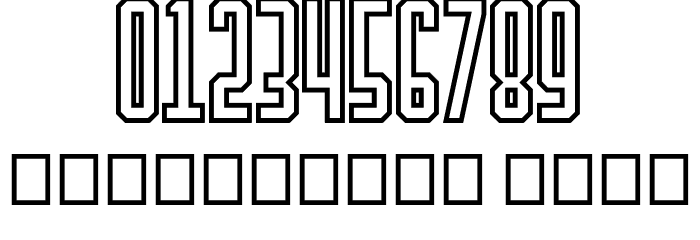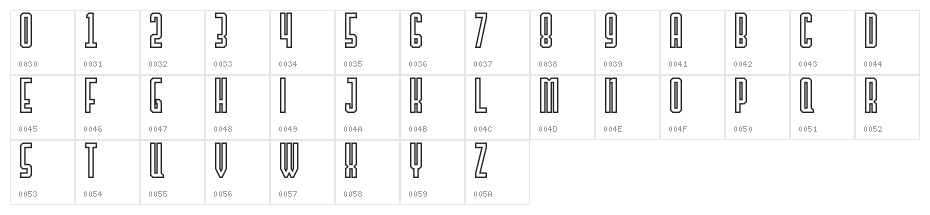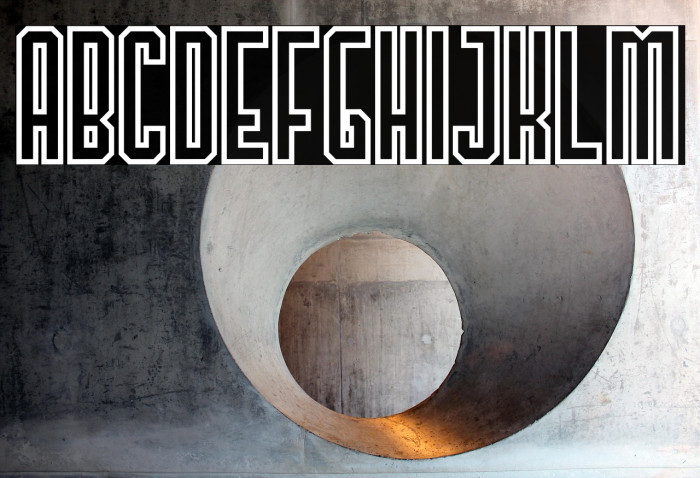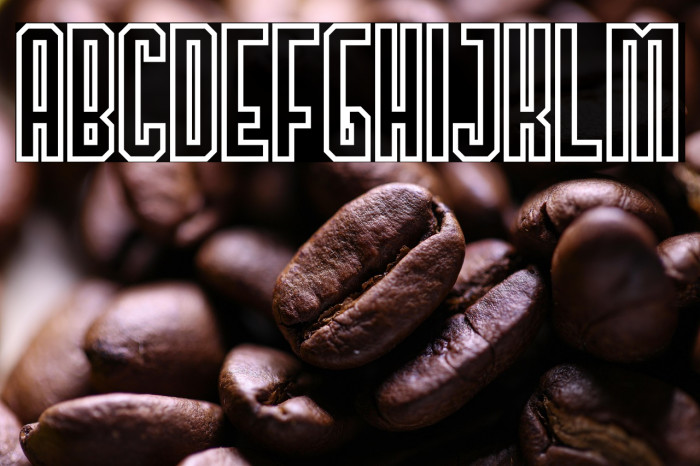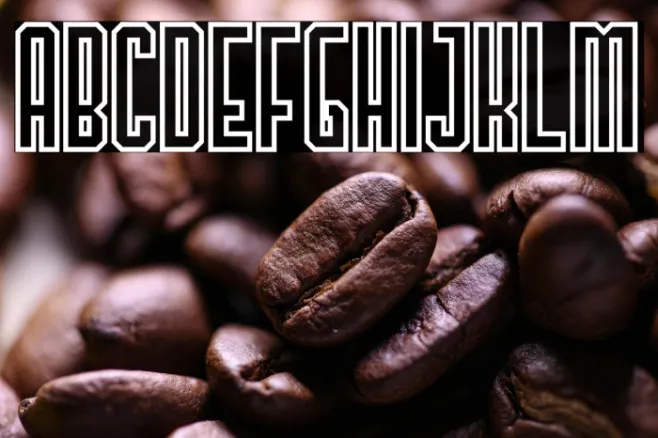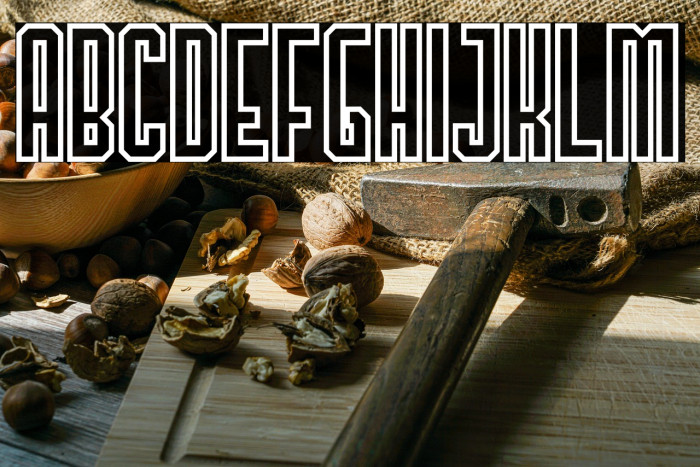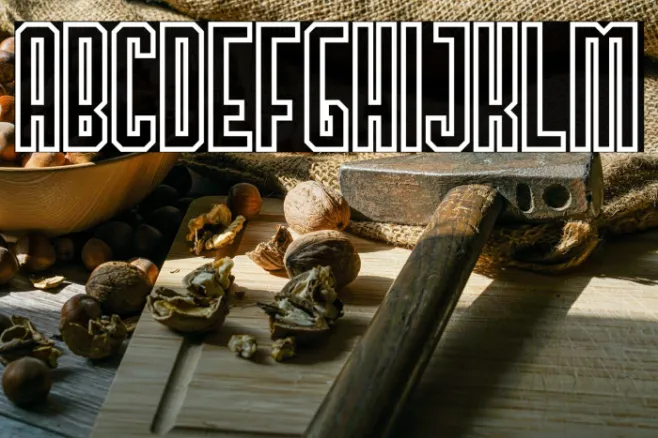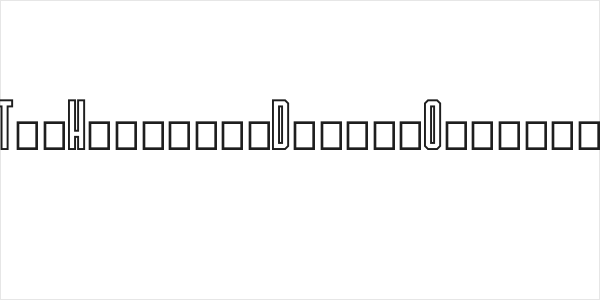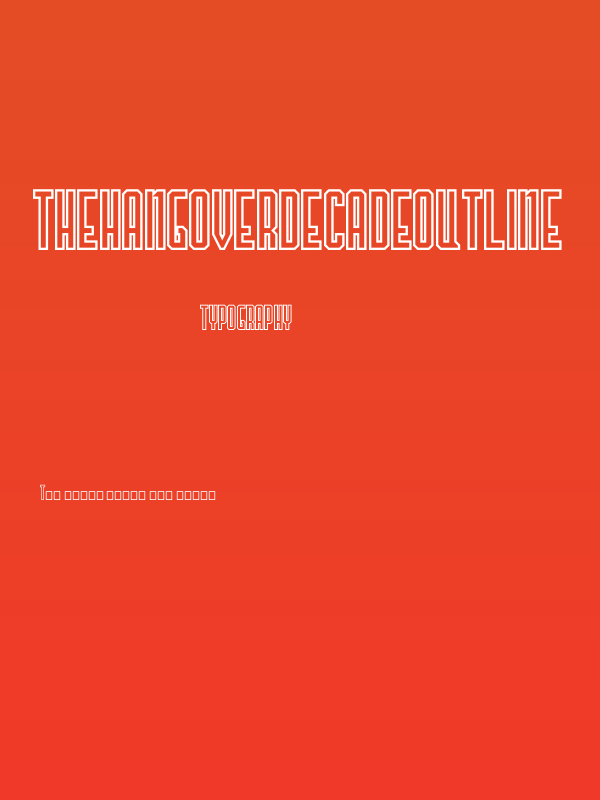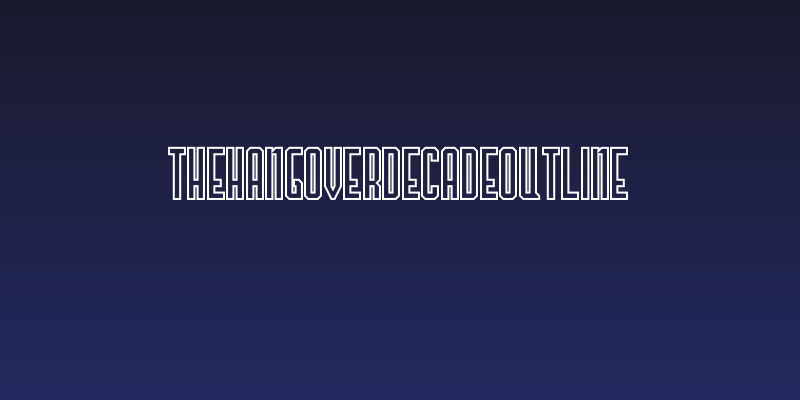
TheHangoverDecadeOutline Font
TheHangoverDecadeOutline Description
This font features a bold, outlined style with a geometric and modern aesthetic. The characters are uppercase and numerals, each with a distinct, angular design that gives a sense of depth and dimension. The outline effect creates a striking visual impact, making it ideal for attention-grabbing headlines or titles. The font's structure is consistent, with uniform stroke widths and sharp edges, contributing to its contemporary and edgy appearance. The spacing between characters is normal, allowing for clear readability while maintaining its bold presence.
| Proposed Projects | Ideal for posters, logos, album covers, and any project requiring a bold, modern statement. |